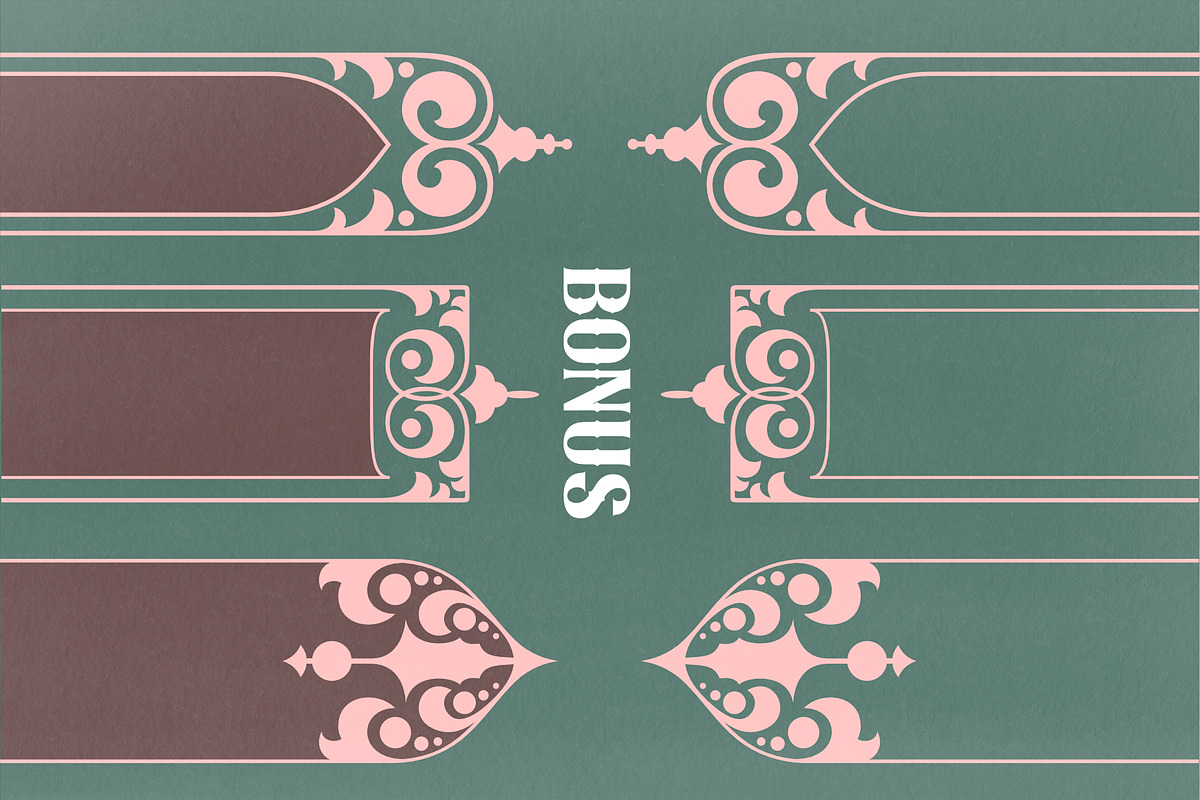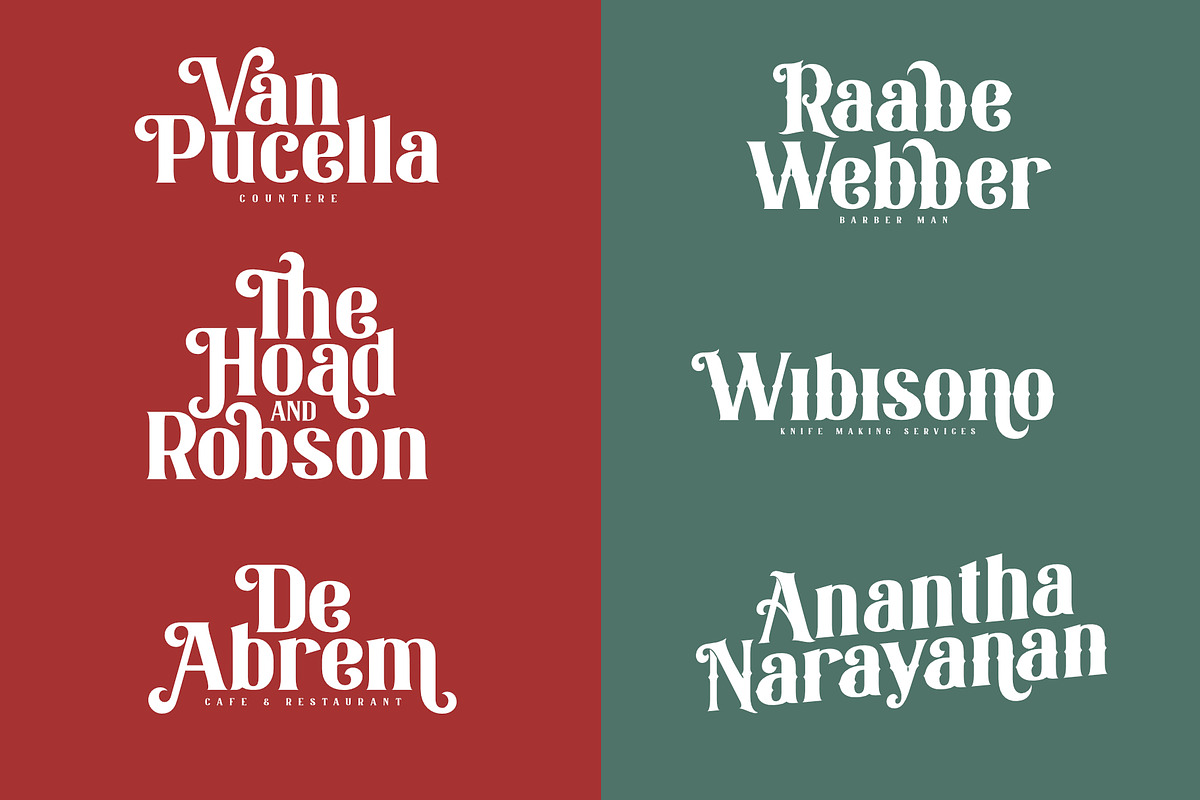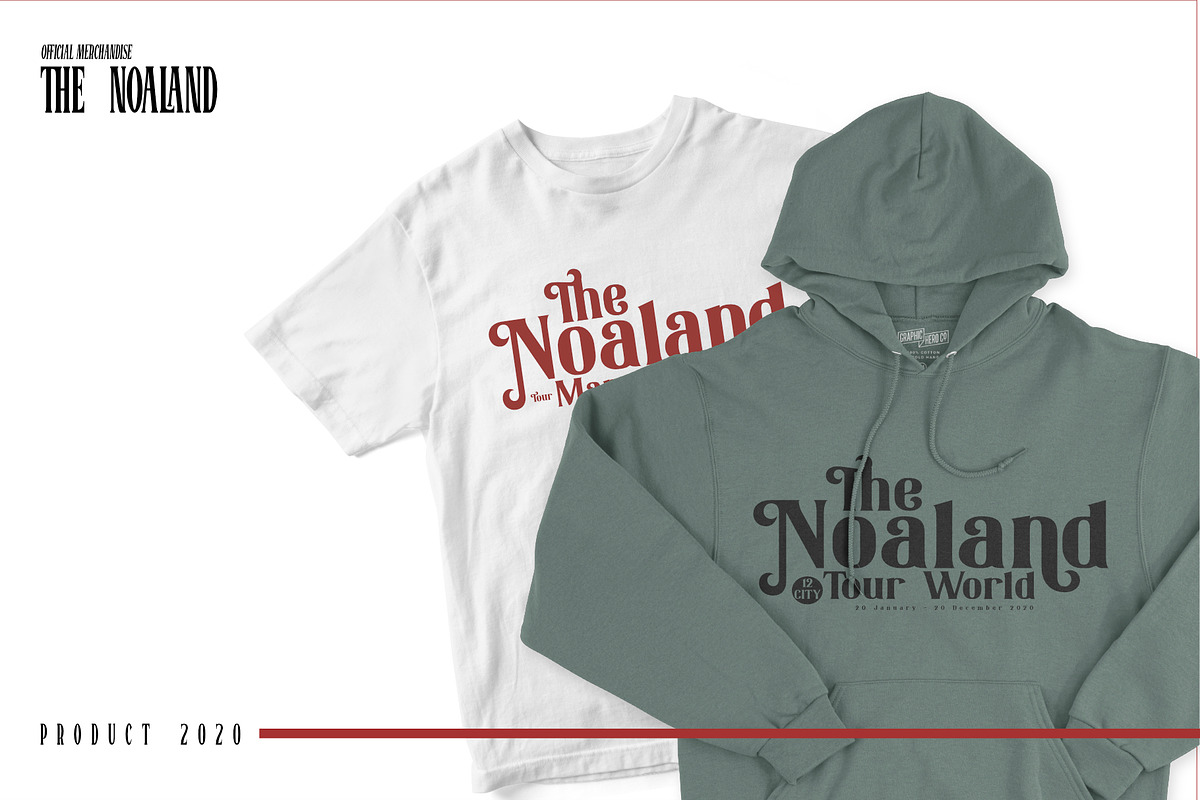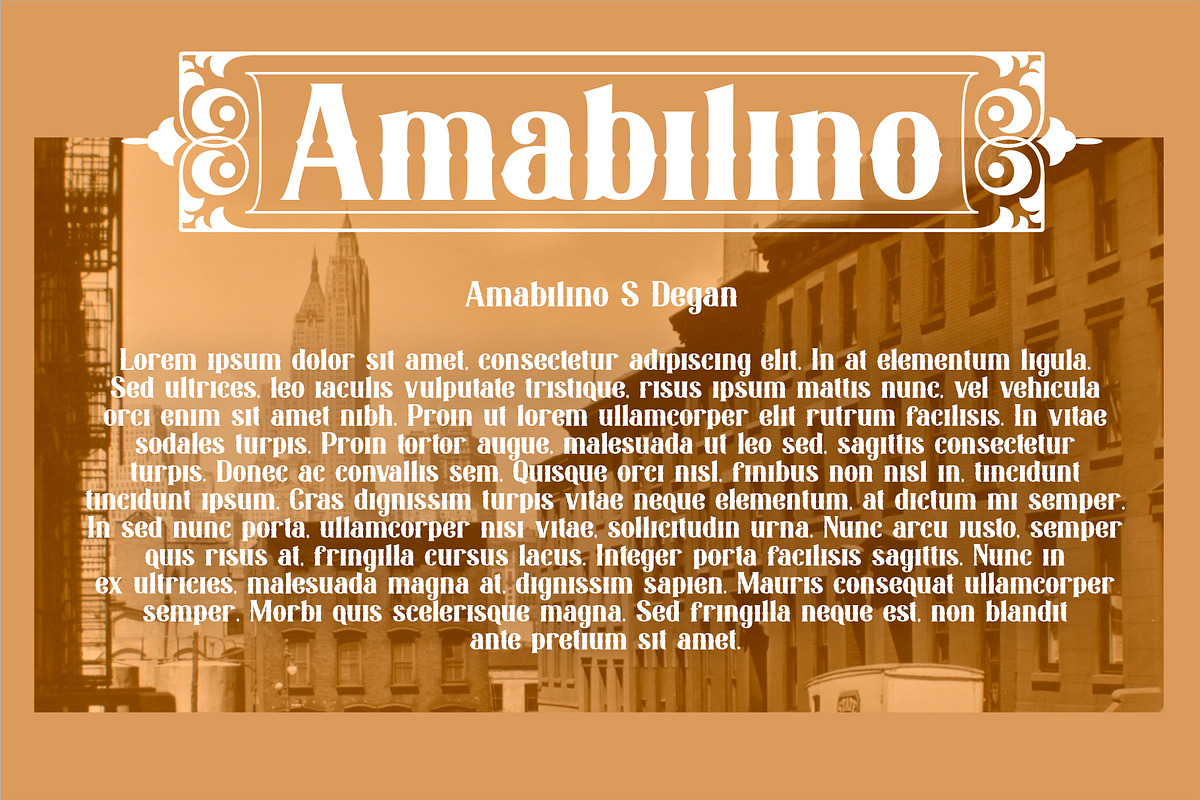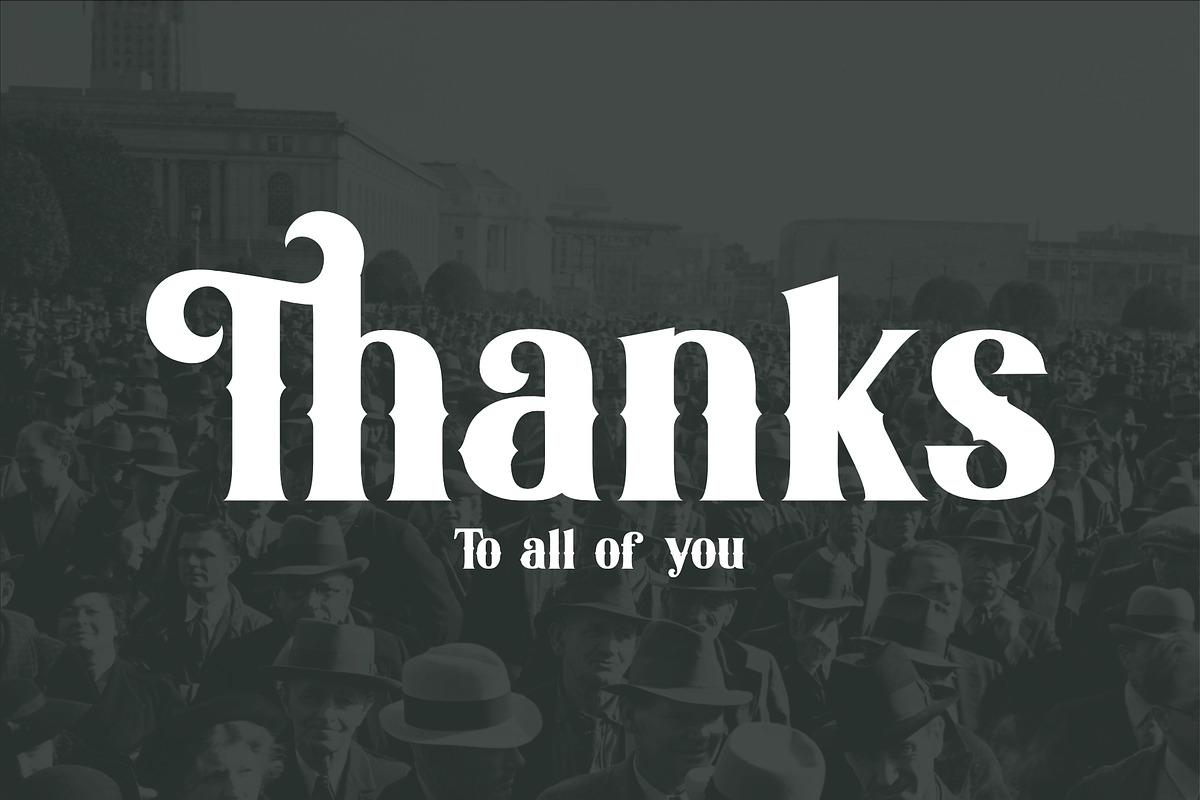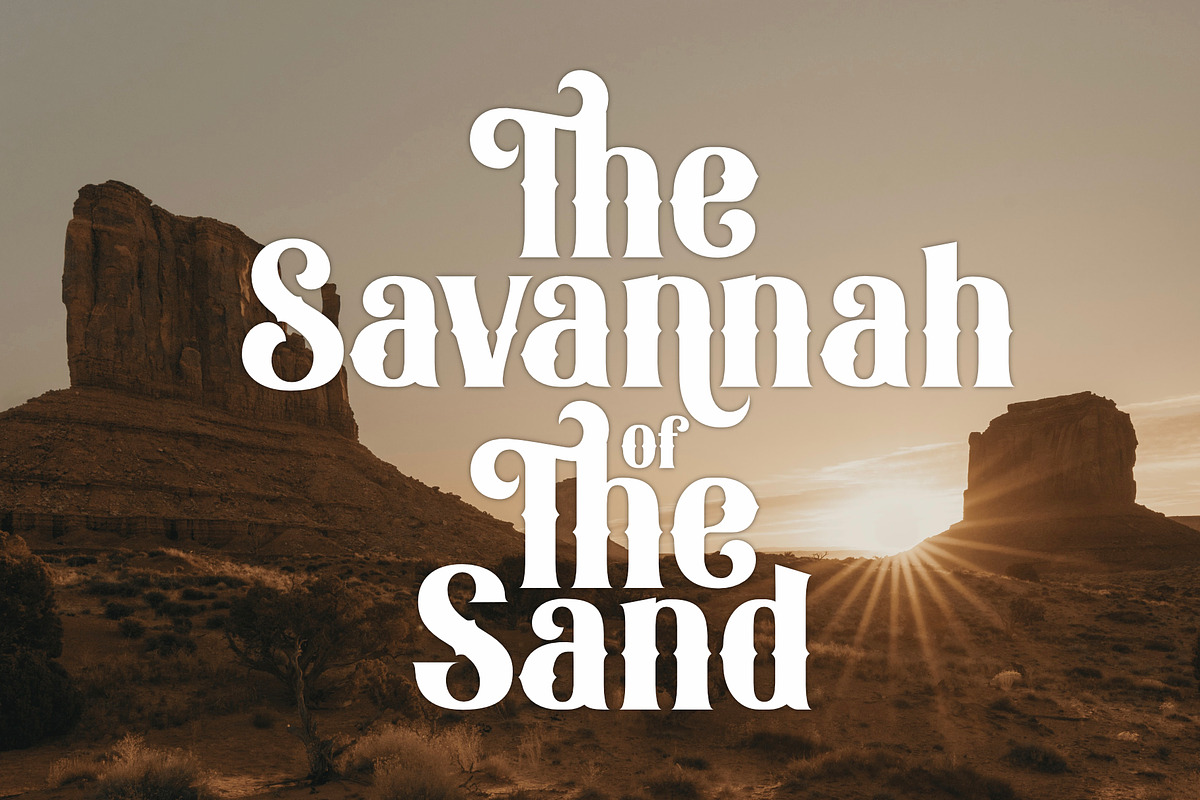
Virago - Modern Serif
Virago Font consists of two alternative fonts namely Regular Virago which has a modern and contemporary soft impression while Virago Alternate has an old-fashioned vintage impression, both of which have their own distinct impression but have the same advantage of having lots of alternative fonts that make it easier for you to use it, so what are you waiting for?
- Uppercase Characters
- Lowercase Characters
- Foreign Languages Support: ÀÁÂÃÄÅÆÇÈÉÊËÌÍÎÏÐÑÒÓÔÕÖØÙÚÛÜÝßàáâãäåæçèéêëìíîïñòóôõöøùúûüýÿ